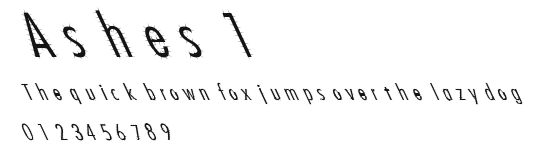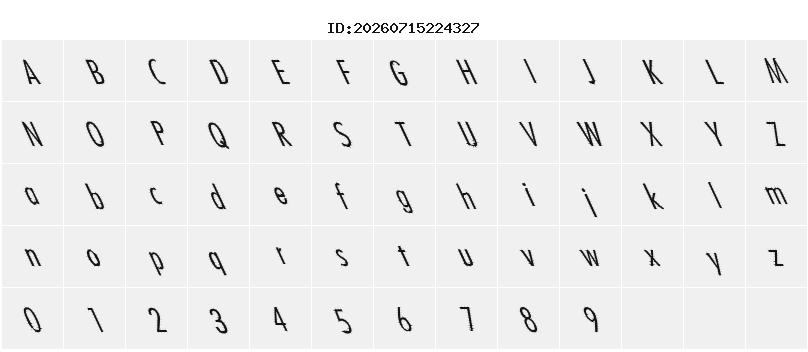
• Font Name: Ashes 1
• Full Font Name: Ashes 1
• PostScript Name: CatScratch Reverse Italic
About Ashes 1.ttf
Ashes 1.ttf is a modern, elegant sans-serif font designed for ultimate readability and visual harmony. Perfect for branding, headlines, web design, and print materials.